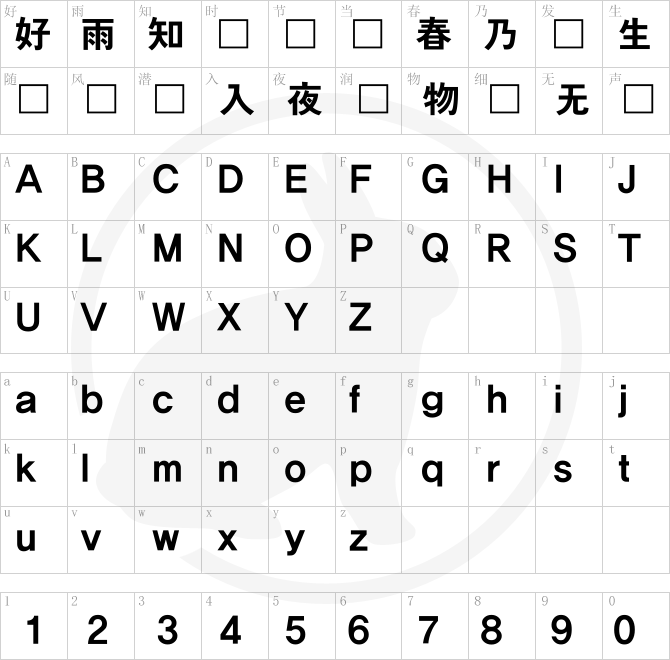
- Font Name:YDIYGO350
YDIYGO350.ttf is a very beautiful artistic font, YDIYGO350.ttf is widely used in the design and printing of various books and pictures,YDIYGO350.ttf has a strong visual impact,YDIYGO350.ttf is a commonly used font in newspapers, magazines and books, and is used in posters, e-commerce Poster design, store design, logo design, font design and other fields.YDIYGO350.